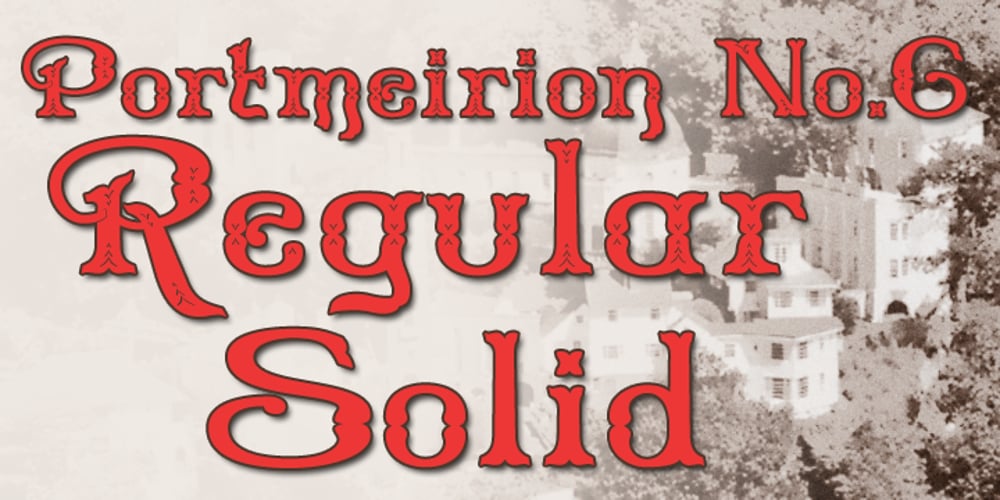
Portmeirion No.6
Portmeirion No.6 font
Portmeirion No.6 Font Family was designed by Paul James Lloyd and published by Greater Albion Typefounders. Portmeirion No.6 contains 2 styles and family package options. Portmeirion No.6 started life as an experiment by our designer, who was exploring the possibilities of a completely ‘over-the-top’ display Roman face, bringing in elements of Tuscan and ‘Circus’ design, along with anything else he felt like. He’s instilled a little more discipline in the finished result…but just ever so little. We have Fred Stevens, a regular reader of our website to thank for the name. He’s comment on seeing a preview of the design was ‘Over the top, Italianesque decorative and intriguing. add some 60’s TV and voila Portmeirion.’ Why No.6-well you’d need to know a bit about 1960s television to understand that, but we’ll give you a hint…”Where am I?”…”In the village”.